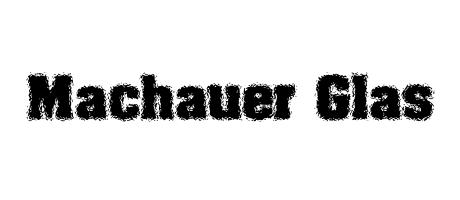
Machauer Glas
Machauer Glas: A bold, textured typeface, reminiscent of chiseled stone or deeply etched glass. Its rugged, almost primal feel evokes strength and authenticity. Perfect for titles, logos, and designs demanding a raw, unrefined aesthetic; it whispers of history and enduring quality.